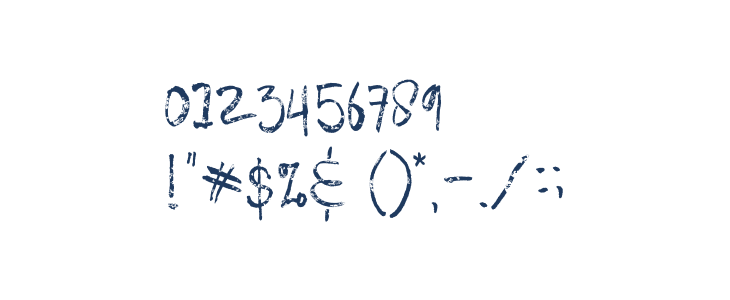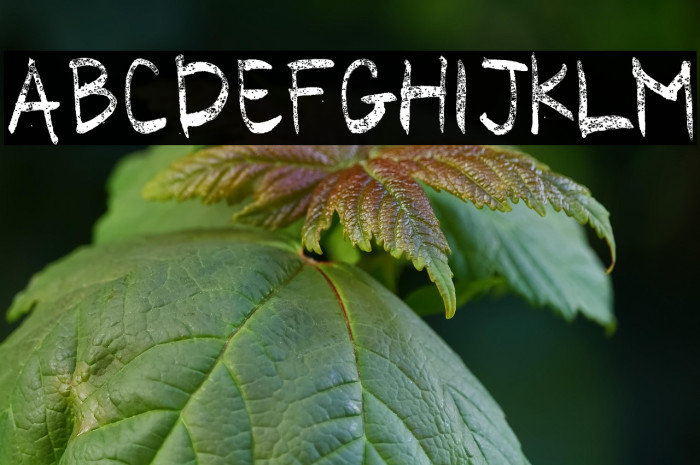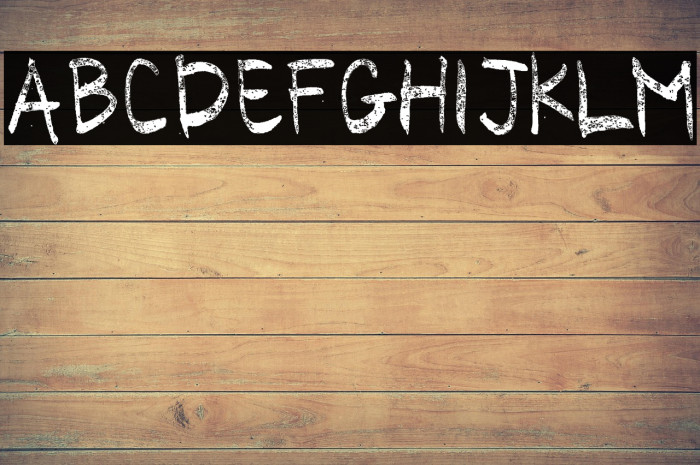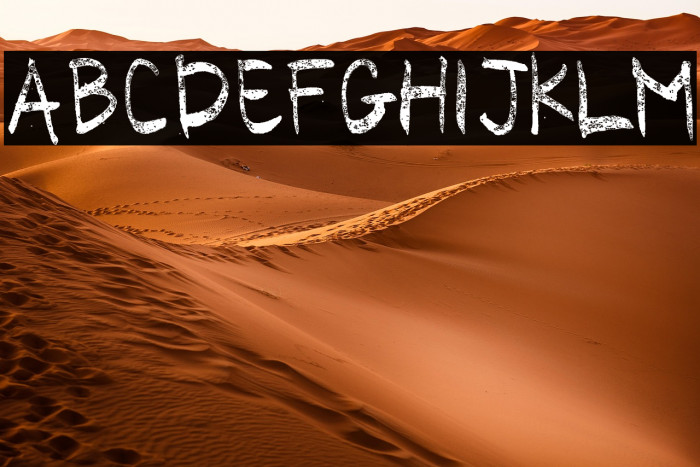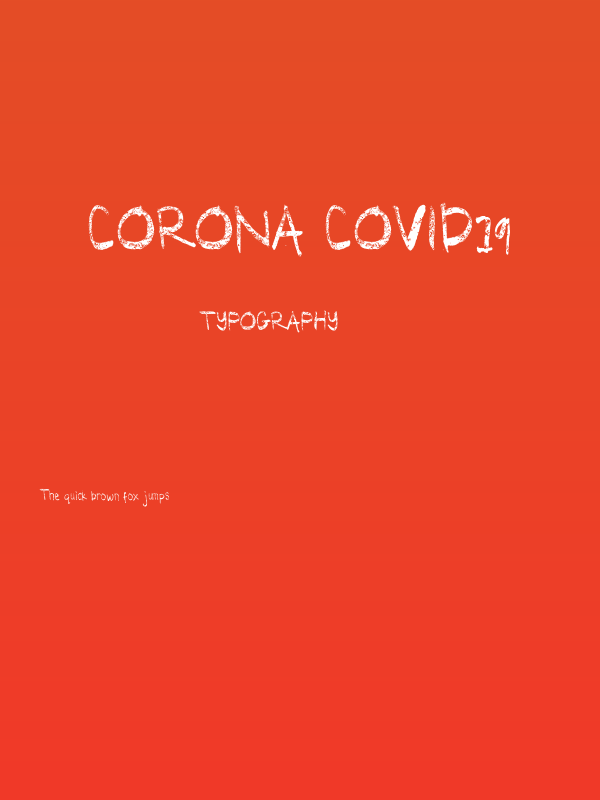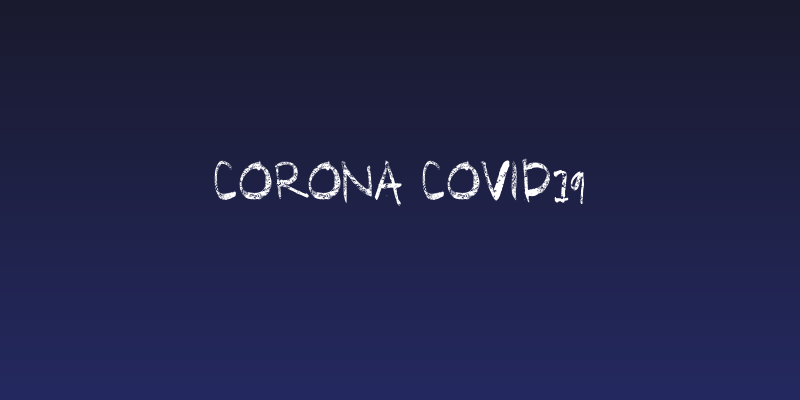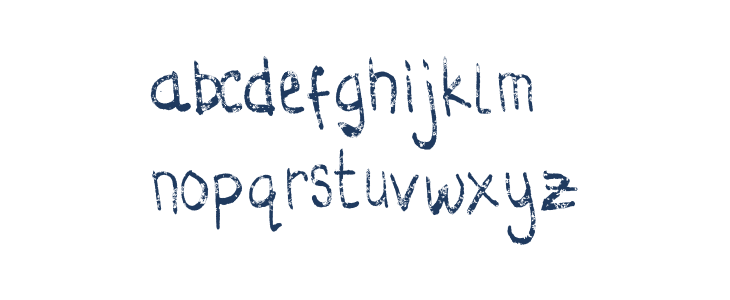
CORONA COVID19 Font
CORONA COVID19 Description
This font features a distressed, grunge style with a hand-drawn appearance. The characters have an uneven texture, giving them a rugged and organic feel. The uppercase and lowercase letters maintain a consistent style, with slightly irregular edges and varying stroke thicknesses. Numbers and special characters follow the same aesthetic, adding a cohesive look across all elements. The font's unique texture makes it stand out, providing a raw and edgy vibe suitable for creative projects.
Overall StyleGrunge, Hand-drawn
Use CaseHeadlines, Posters, Branding
Proposed ProjectsIdeal for posters, album covers, streetwear branding, and edgy graphic designs.